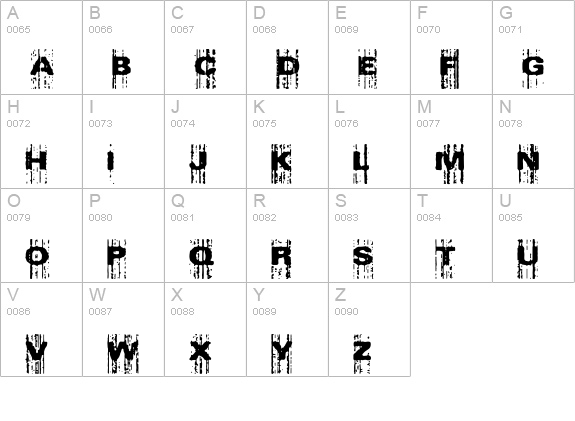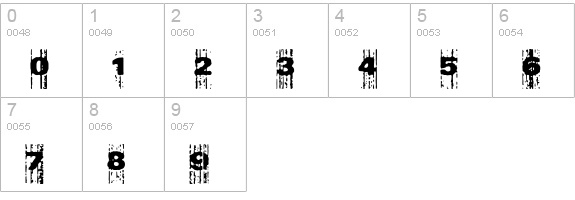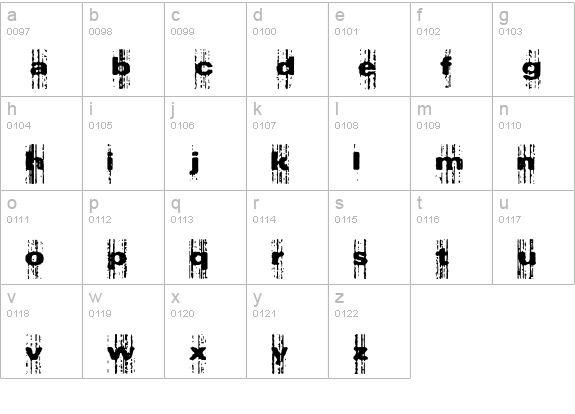
Xerox Malfunction BRK Font Details
Xerox Malfunction BRK font is a unique and edgy typeface that brings a touch of futuristic flair to any design project. With its distorted and glitchy appearance, this font is perfect for creating eye-catching headlines, posters, and digital artwork. The jagged lines and irregular shapes give Xerox Malfunction BRK font a rebellious and avant-garde vibe that is sure to make your designs stand out. What's even better is that Xerox Malfunction BRK font is available for free download at FontsMarket.com. This means you can easily add this striking font to your collection without breaking the bank. So go ahead and unleash your creativity with Xerox Malfunction BRK font today!